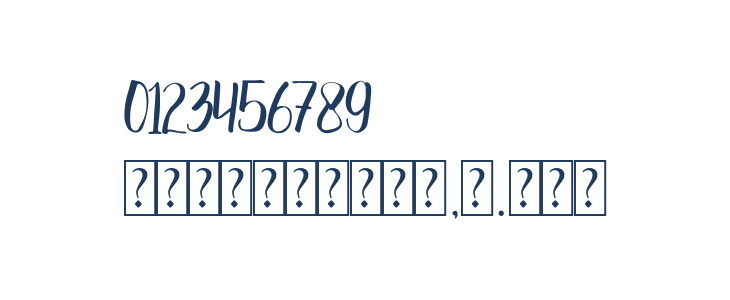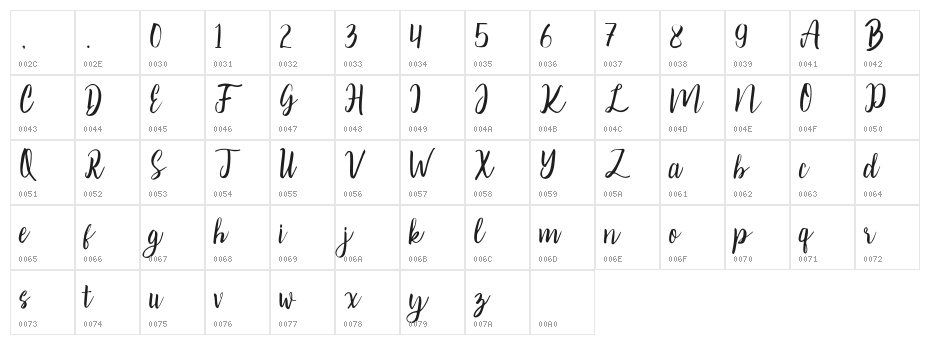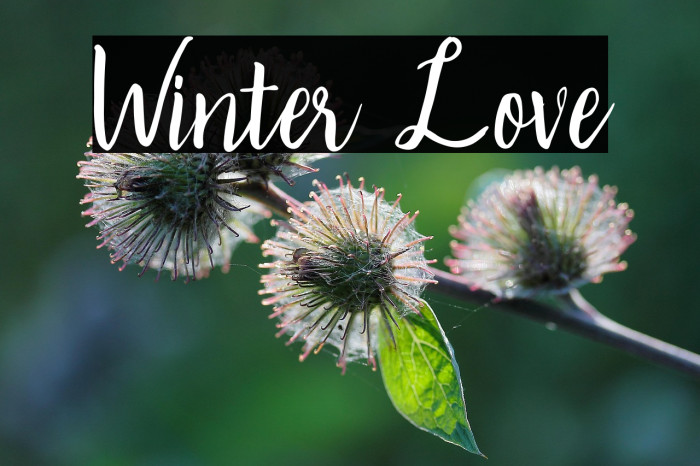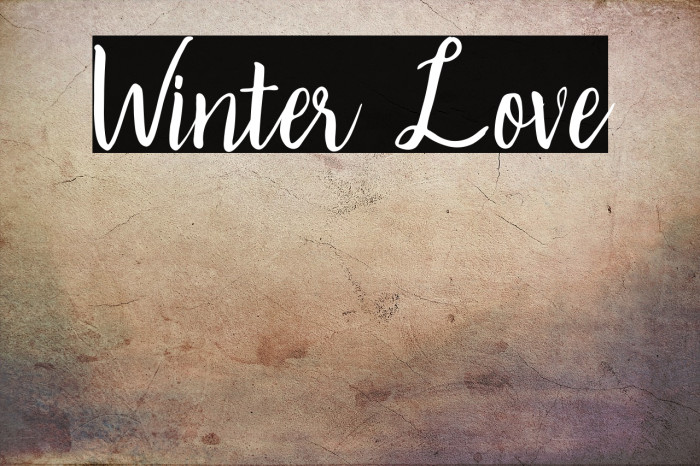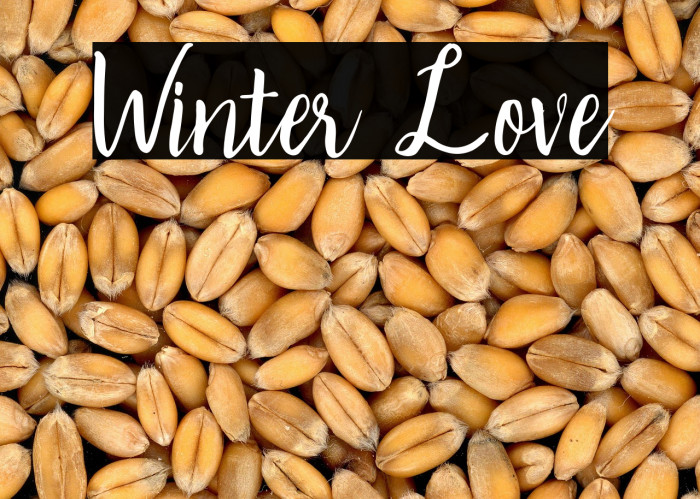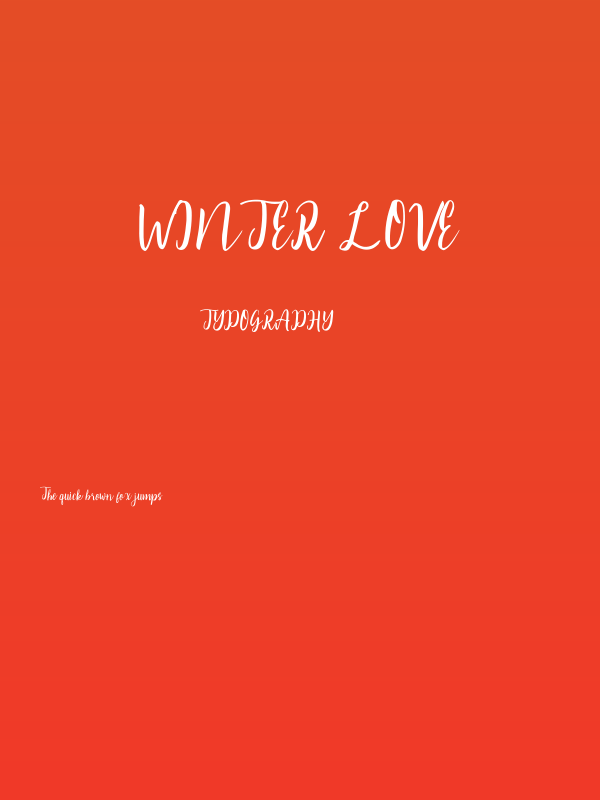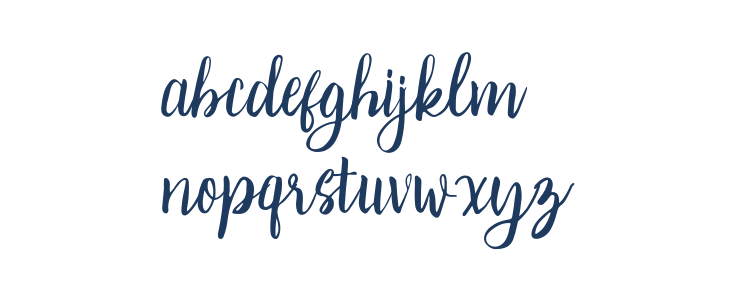
Winter Love Font
Winter Love Description
This font exudes a charming and elegant script style, characterized by its flowing, cursive letterforms. The strokes are smooth and connected, giving it a handwritten feel that is both sophisticated and approachable. The uppercase letters are slightly more ornate, with flourishes that add a touch of flair, while the lowercase letters maintain a consistent rhythm and balance. The numerals are clear and legible, complementing the overall aesthetic. This font is perfect for projects that require a personal touch, such as invitations, greeting cards, or branding materials that aim to convey warmth and elegance.
| Use Case | Invitations, Greeting cards, Branding |
| Proposed Projects | Ideal for wedding invitations, greeting cards, personal branding, and elegant packaging. |